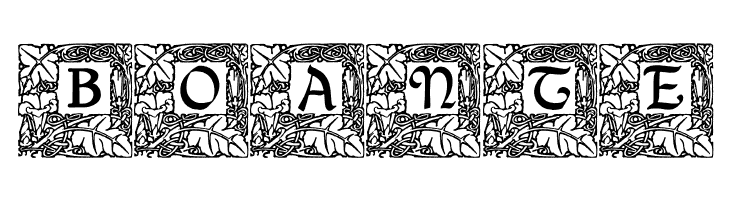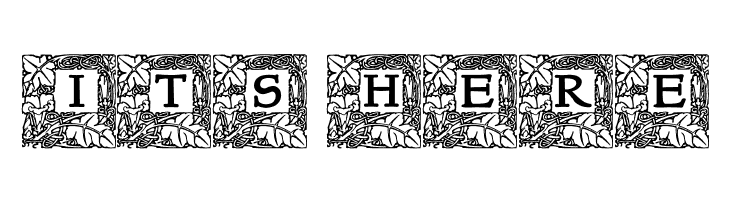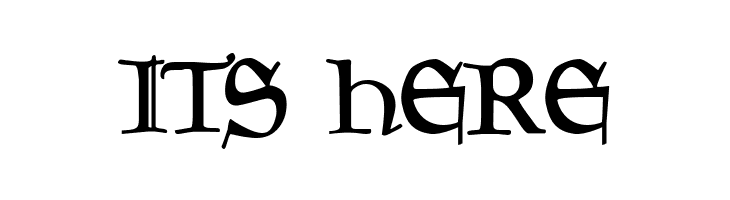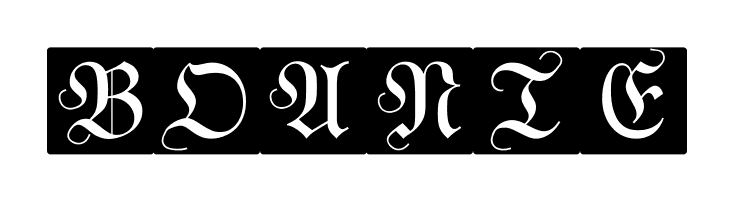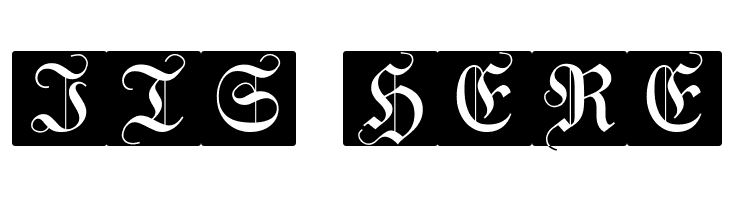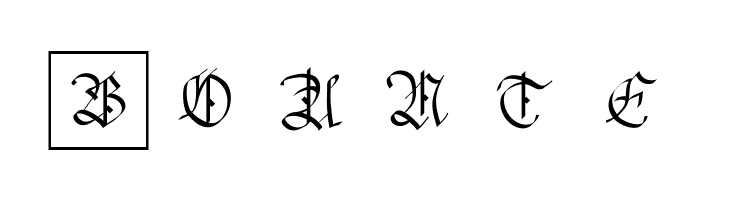
( Paul Lloyd Fonts )
Ornate initials with woodland-themed borders, evoking a vintage, storybook feel.
A medieval-inspired font with decorative serifs and elegant flourishes.
A decorative blackletter font with intricate flourishes and high contrast strokes.
A decorative blackletter font with bold, angular strokes and boxed characters.
A bold, blackletter font with sharp, angular lines and ornate detailing.
An ornate, decorative font with intricate designs and historical flair.
An ornate, medieval-inspired font with intricate decorative elements.
An oblique, angular serif font with a dynamic and energetic style.
Ornate Gothic-style initials with intricate details.
A Gothic-style font with sharp, angular lines and ornate detailing.
An ornate, high-contrast font with decorative flourishes and a regal style.
An ornate, decorative font with intricate designs and a vintage feel.
A bold, medieval-inspired font with angular, sharp letterforms.
An ornate and decorative Gothic-style font with intricate flourishes.
An ornate and decorative font with intricate floral patterns.
An ornate, decorative font with intricate floral patterns in each letter.
A bold, angular Blackletter font with historical elegance.
A rugged, hand-drawn font with an ancient, distressed appearance.
An ornate, medieval-style decorative font with intricate illustrations.
A medieval, calligraphic font with angular, oblique strokes.
Medieval-themed illustrative font with each character as a unique scene.